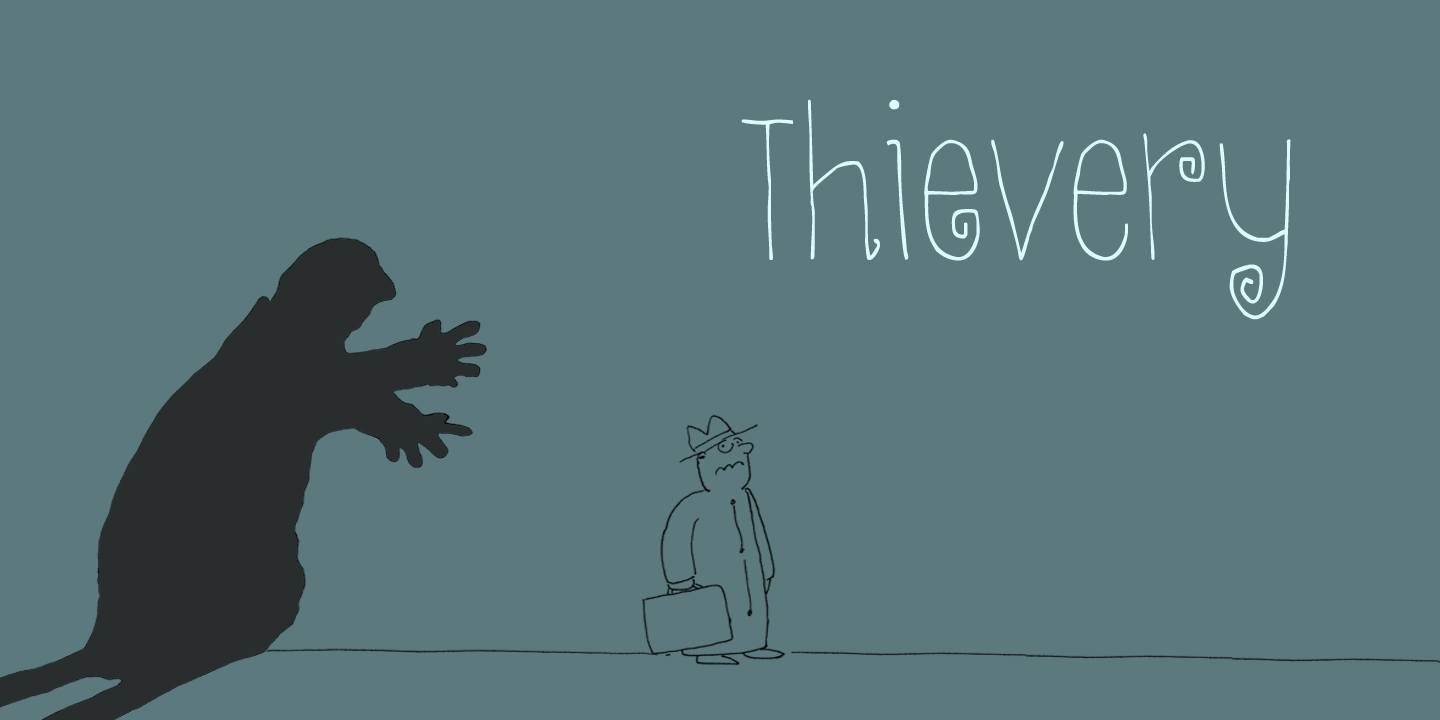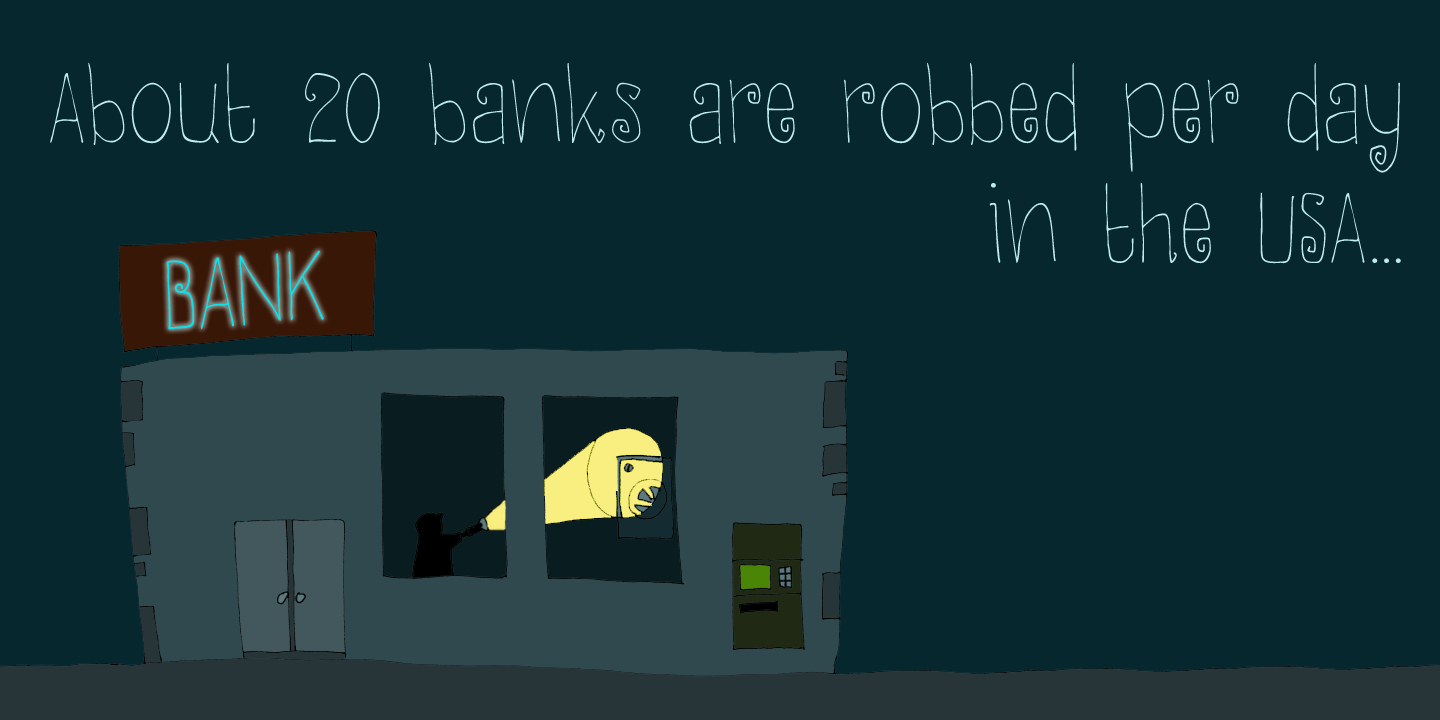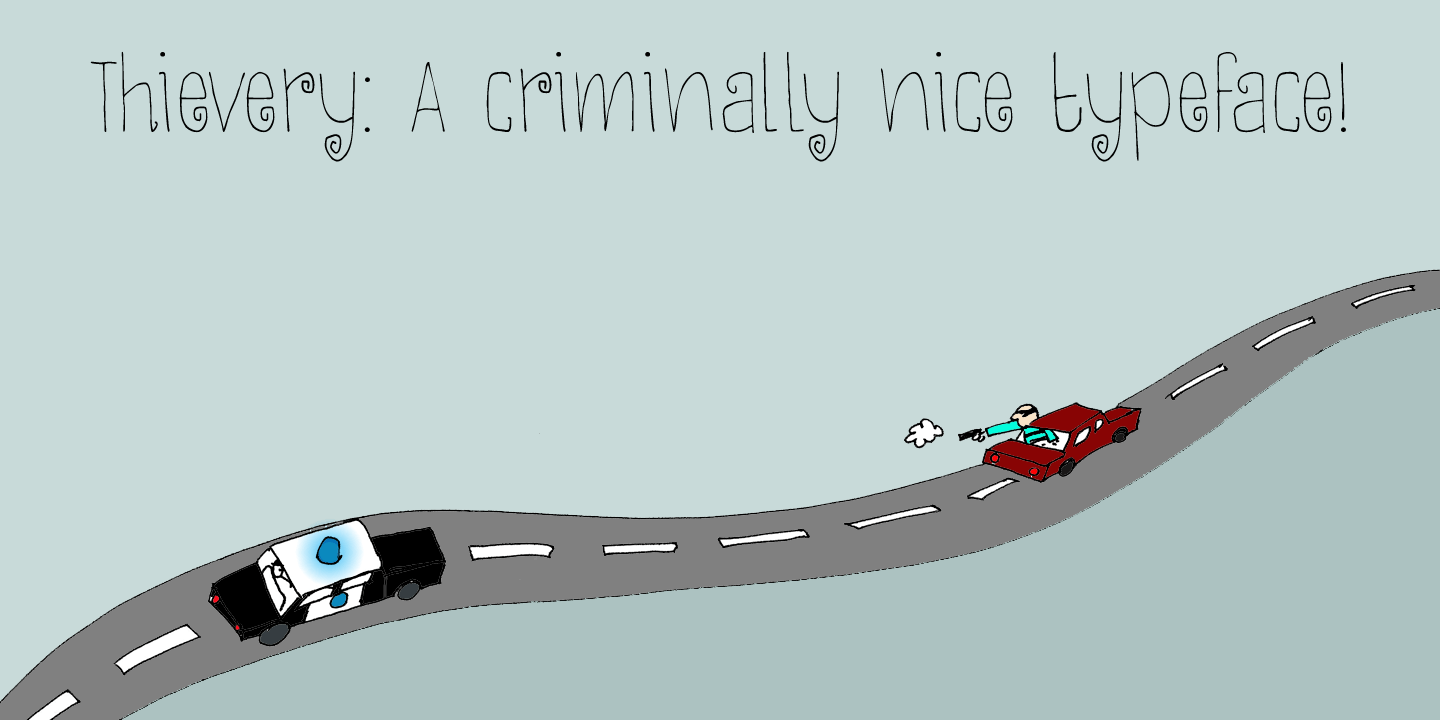
Thievery
The idea behind Thievery? is that there is no idea behind it. Thievery is just a nice, legible, happy typeface. It is hand made, has lots of curly swirly bits and looks good as well. So? grab it and run!